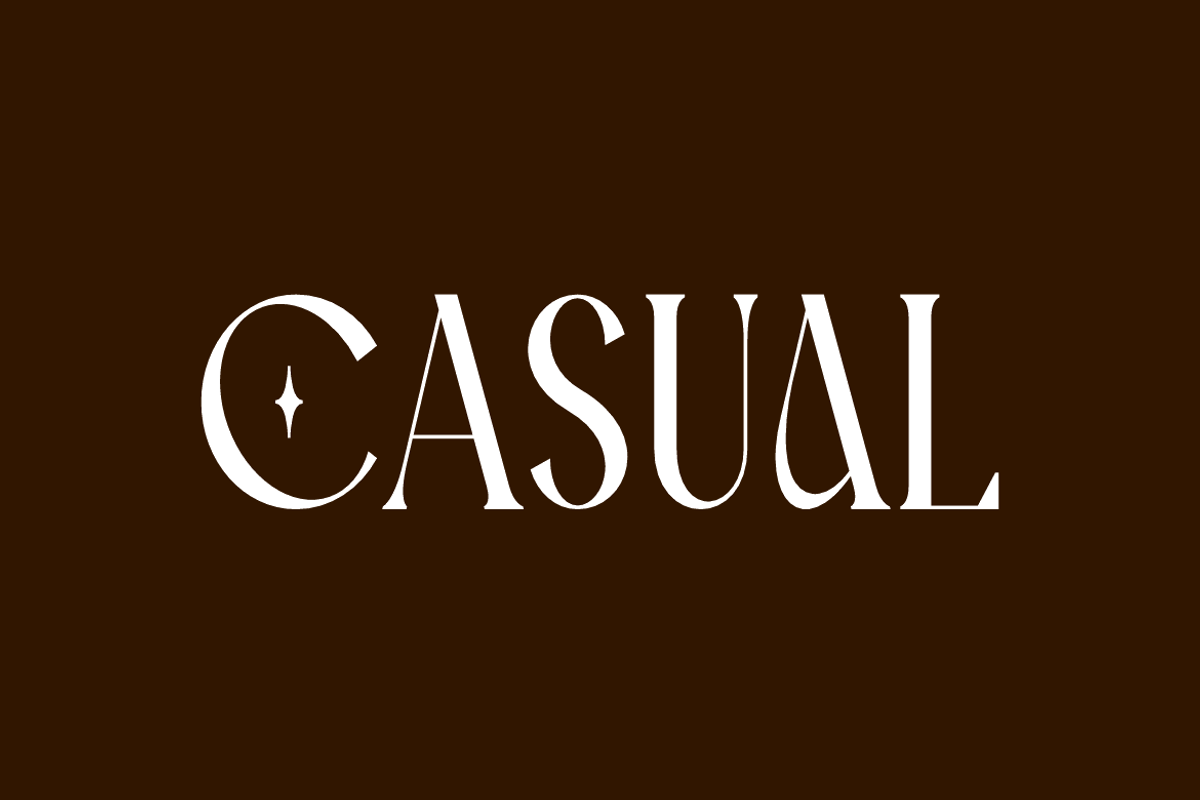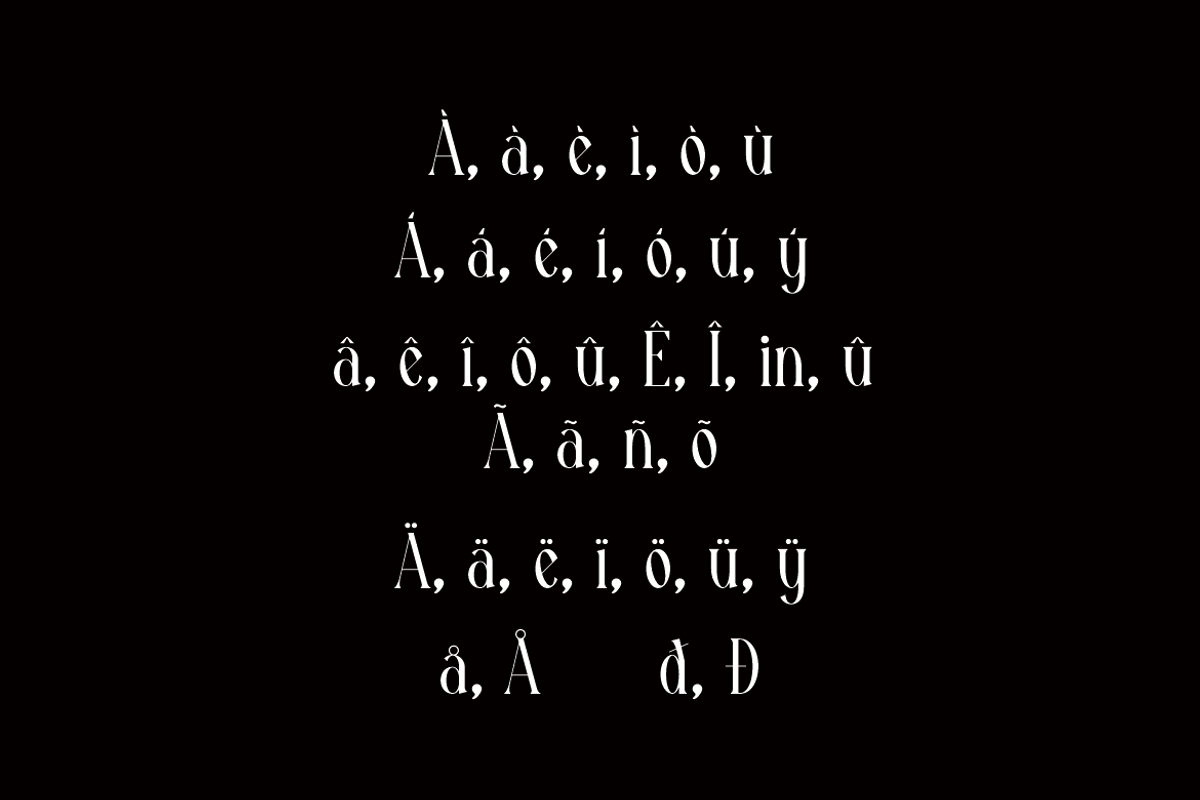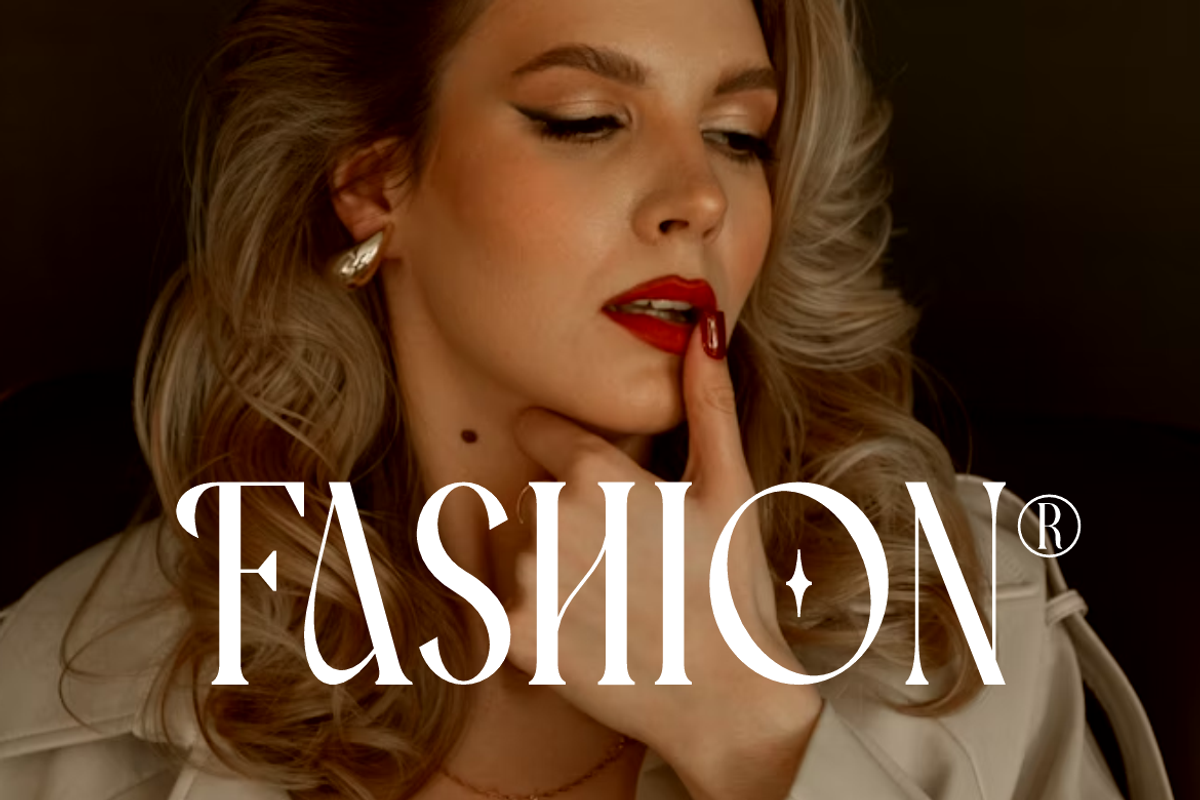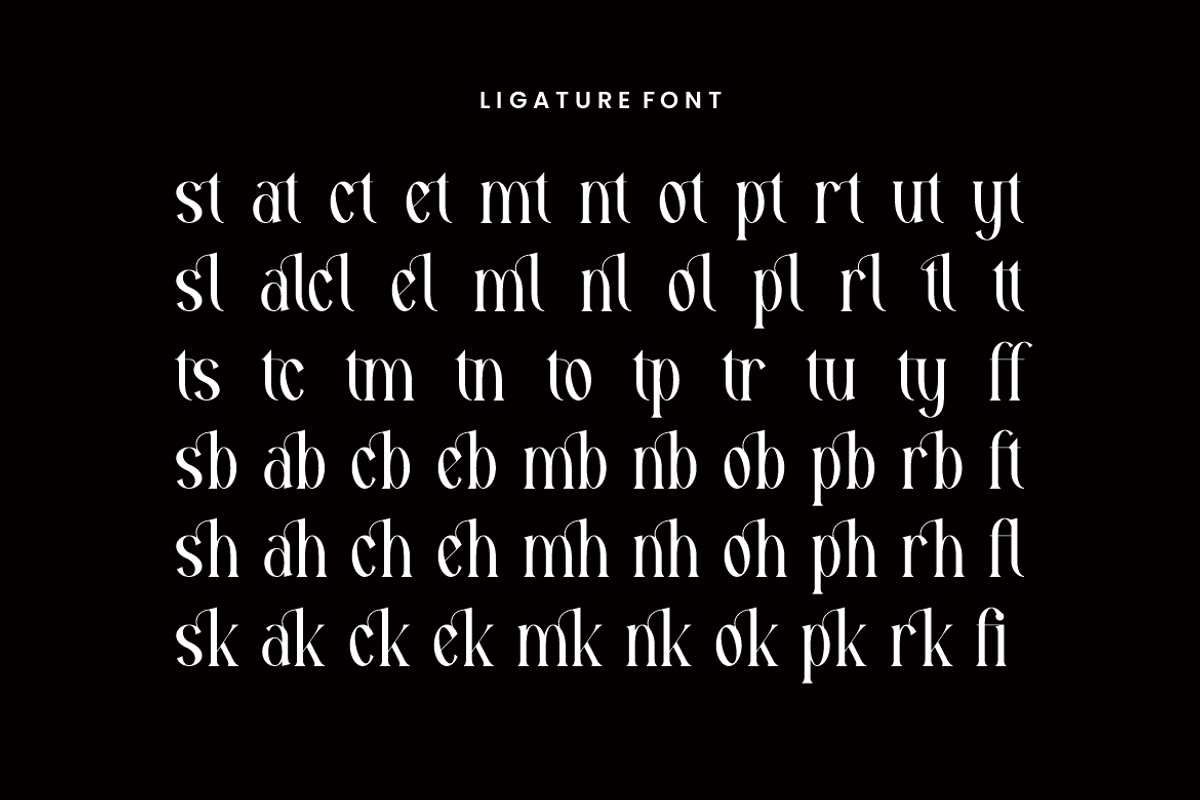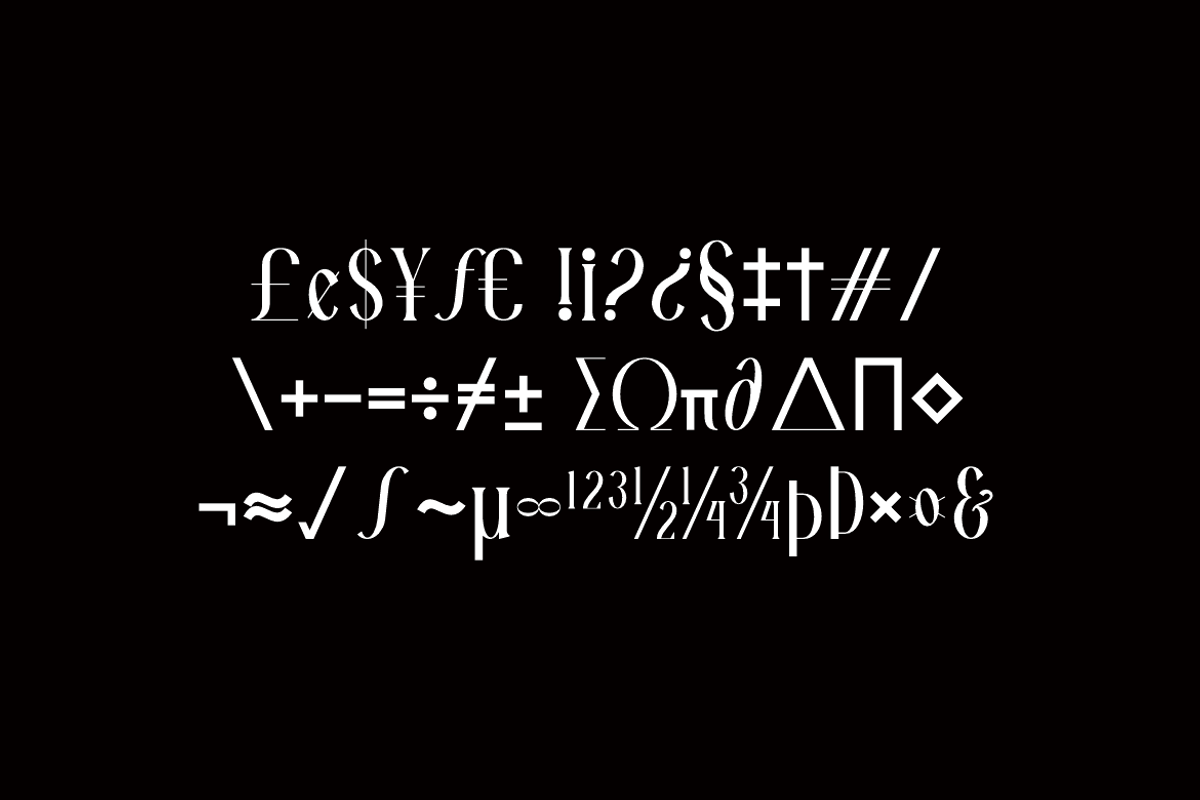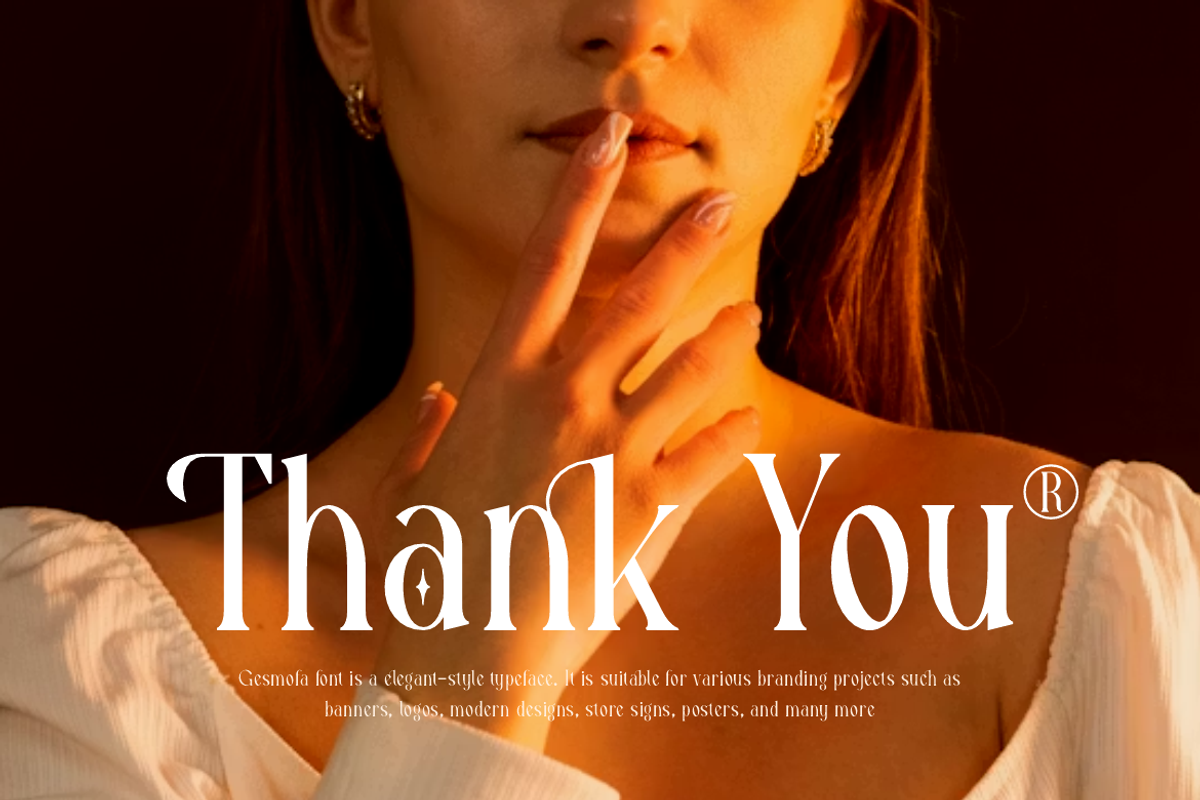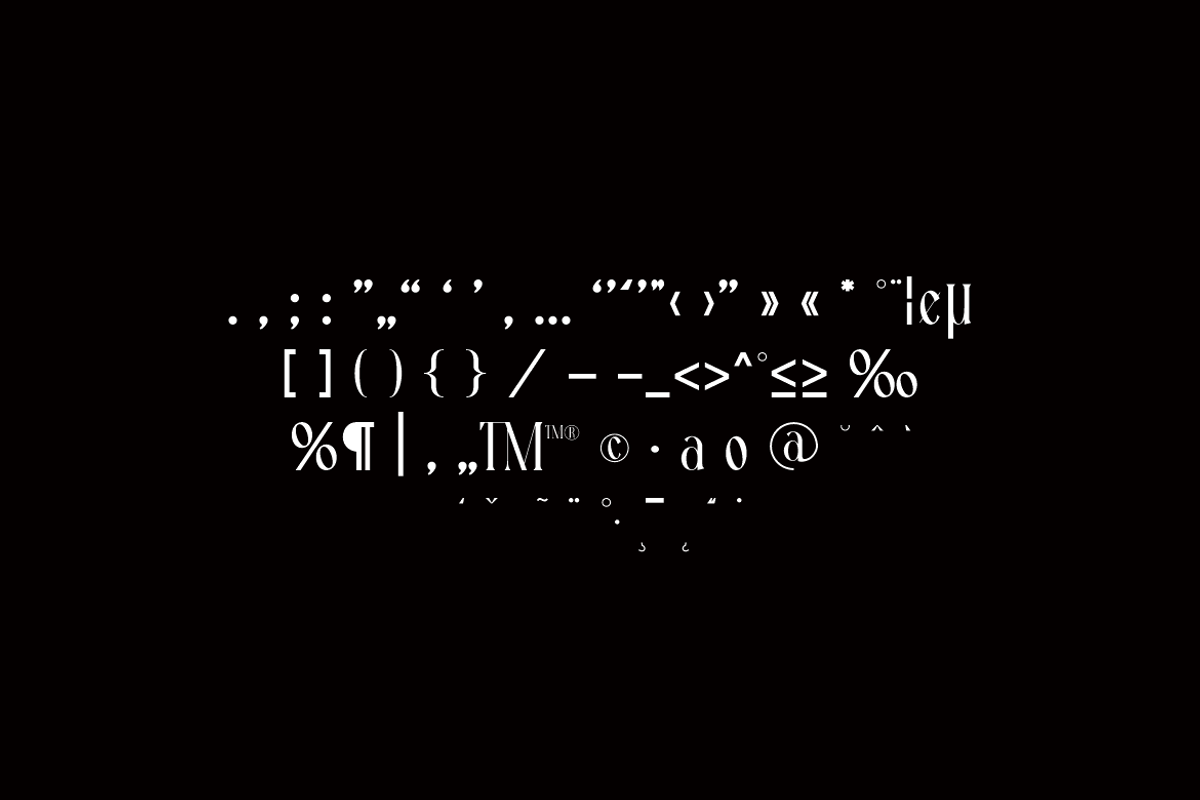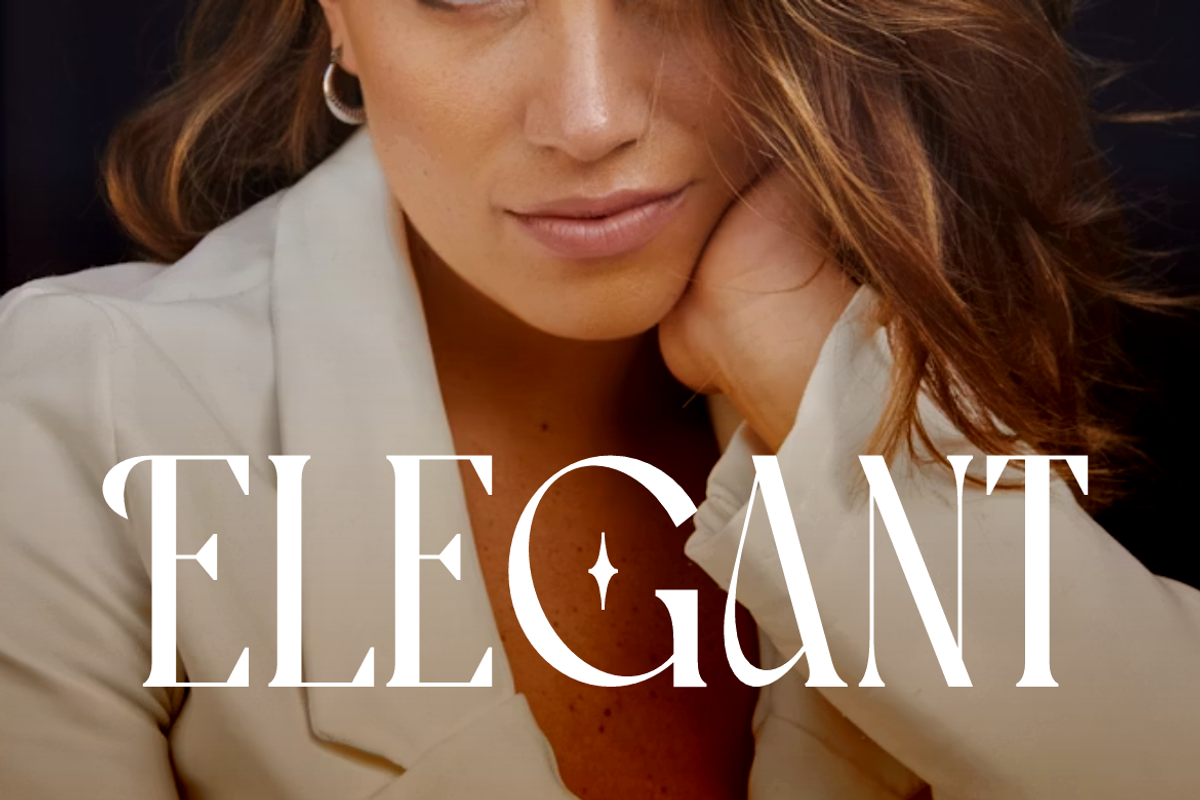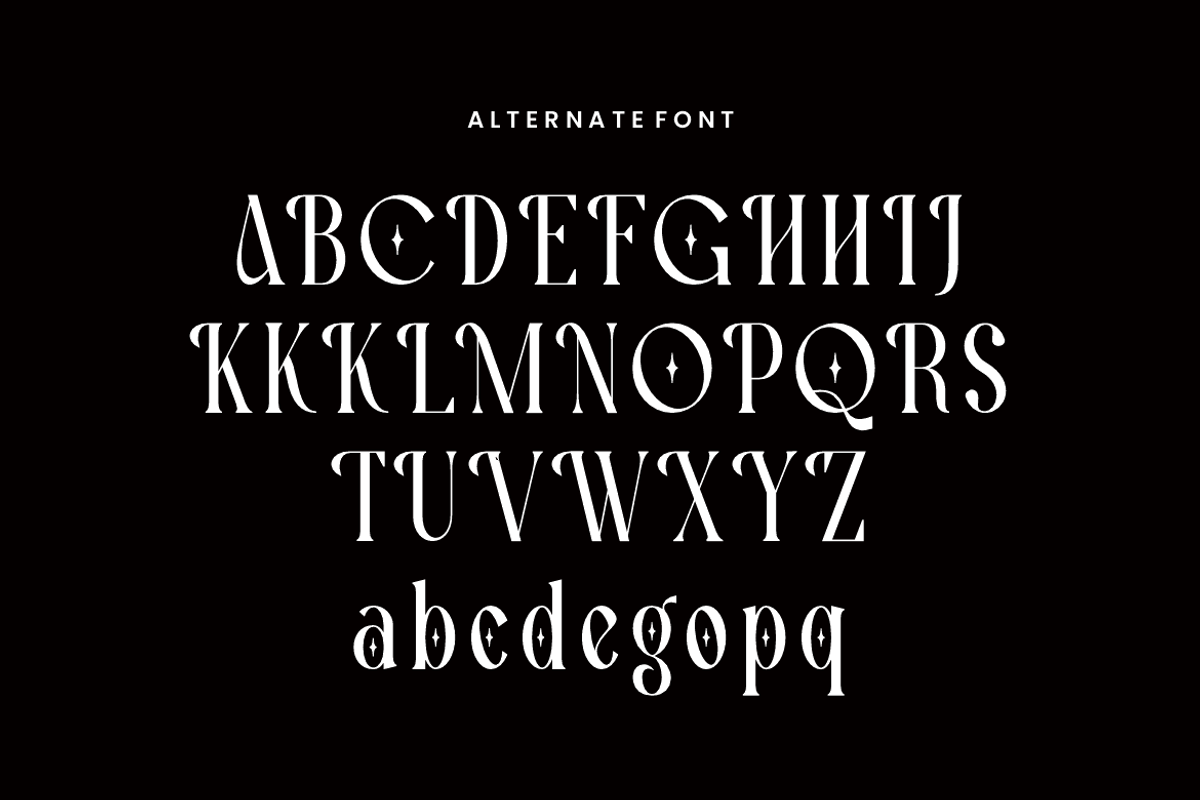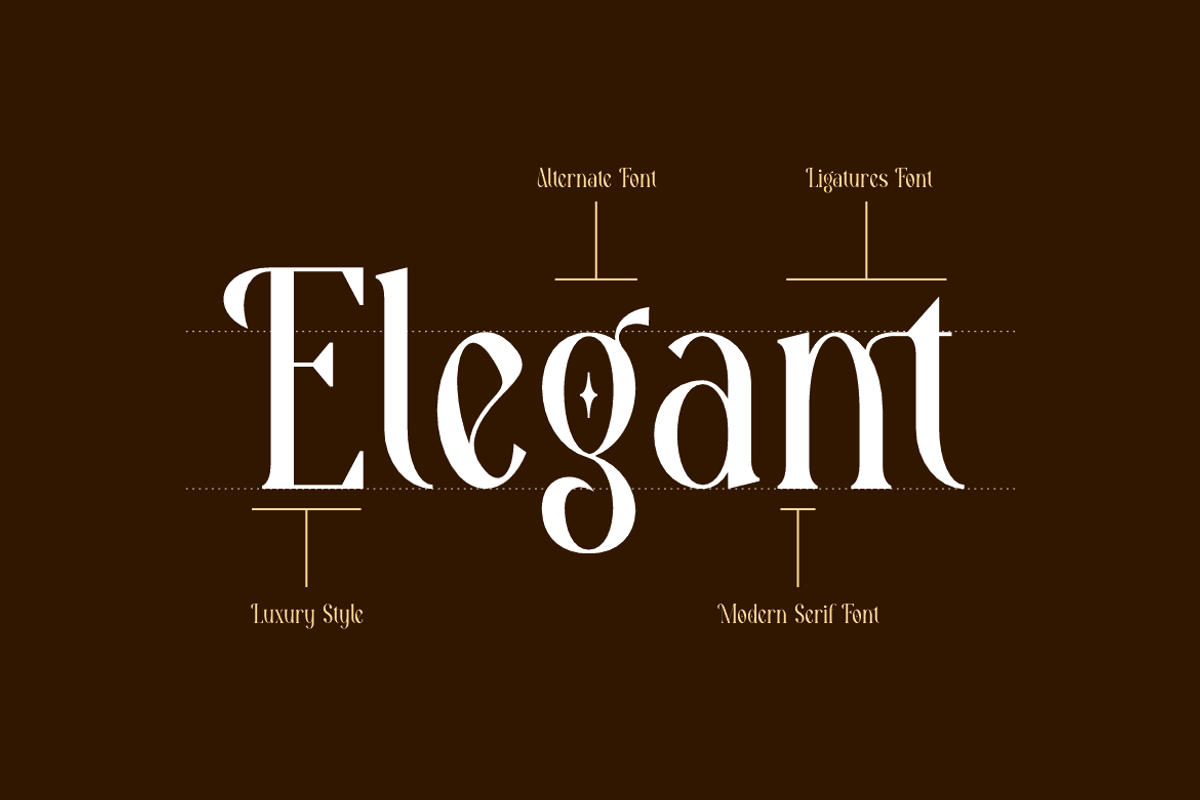
Gesmofa - Modern Cinematic Font
Gesmofa Font is a serif and authentic display typeface.
It’s perfect for various branding projects such as logos, modern designs,
and more. This font stands out beautifully in a wide range of contexts.